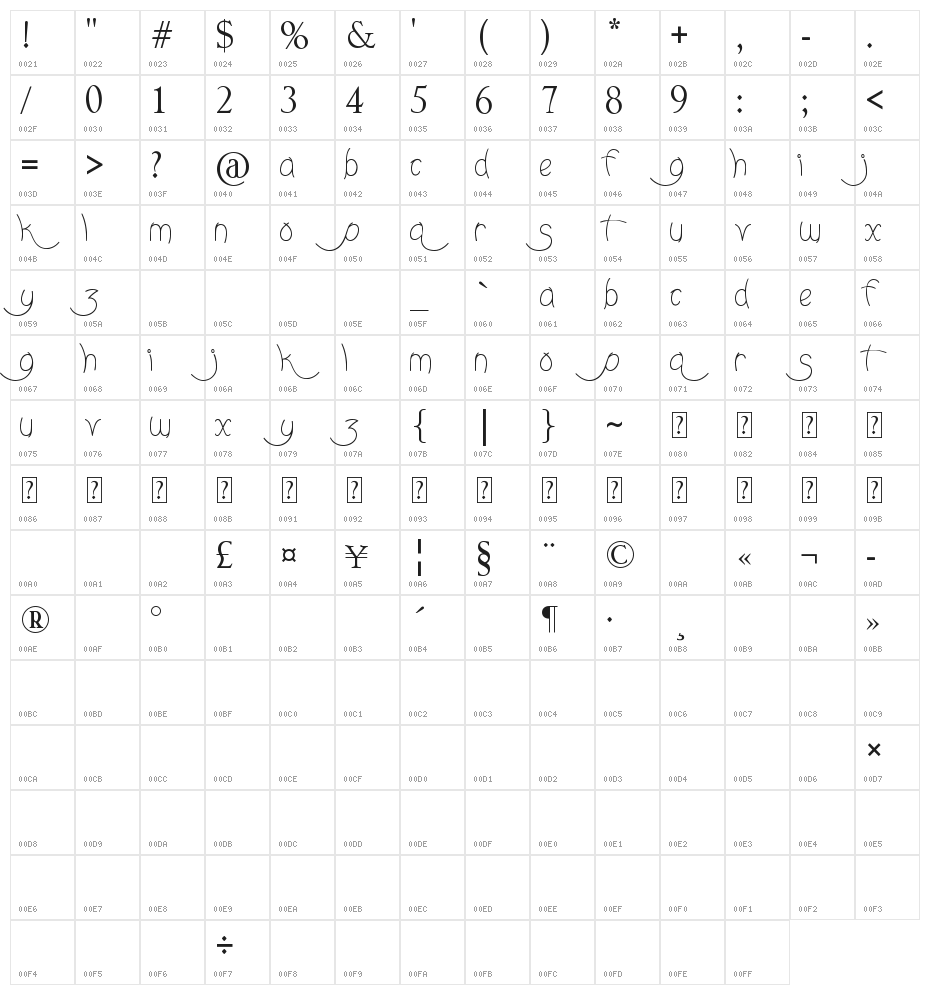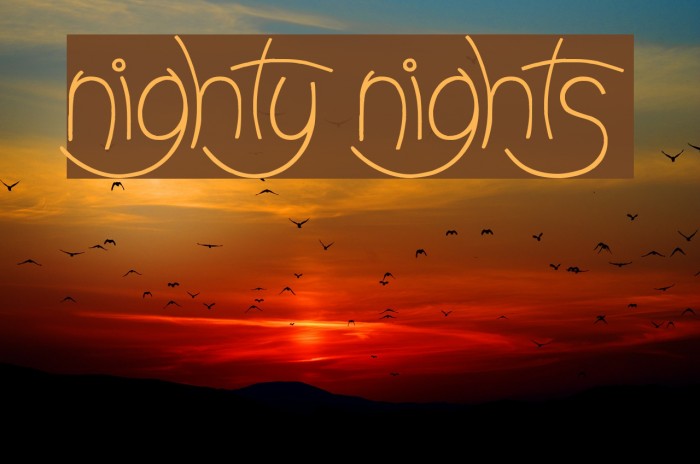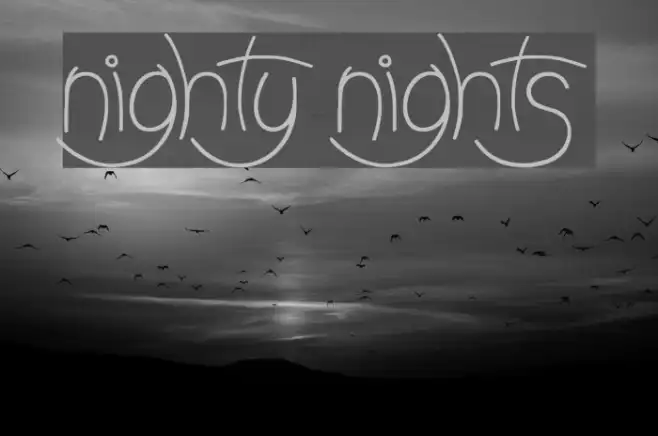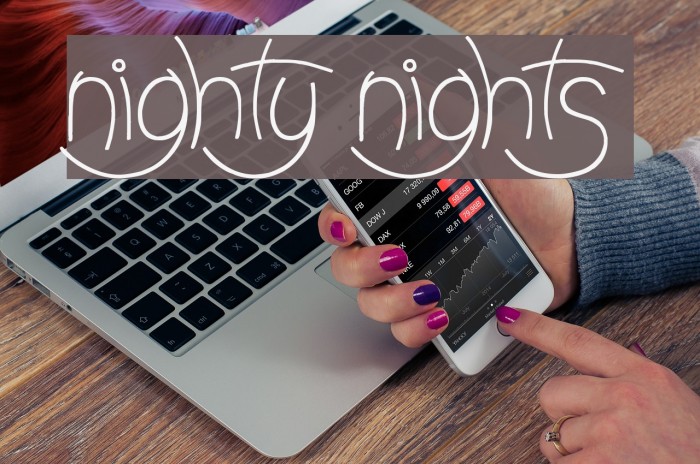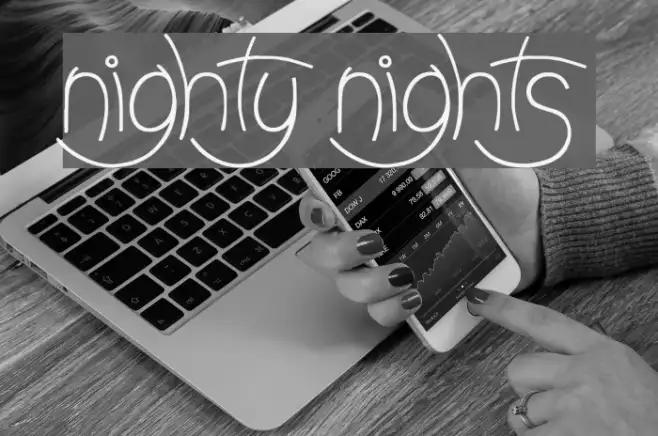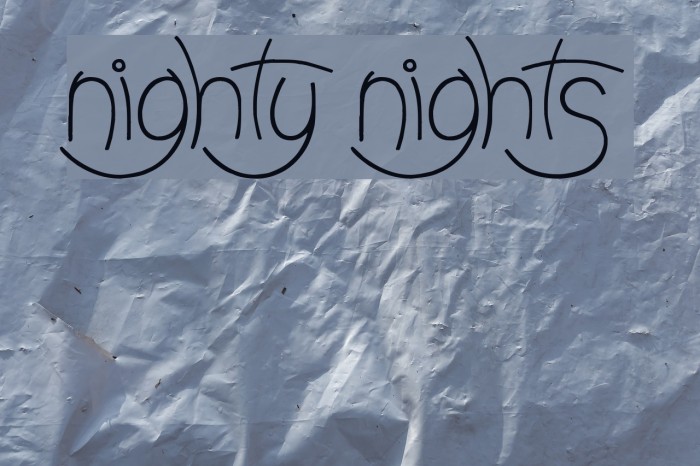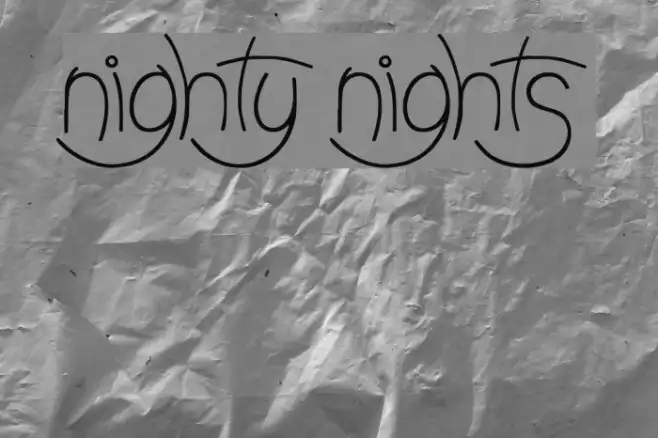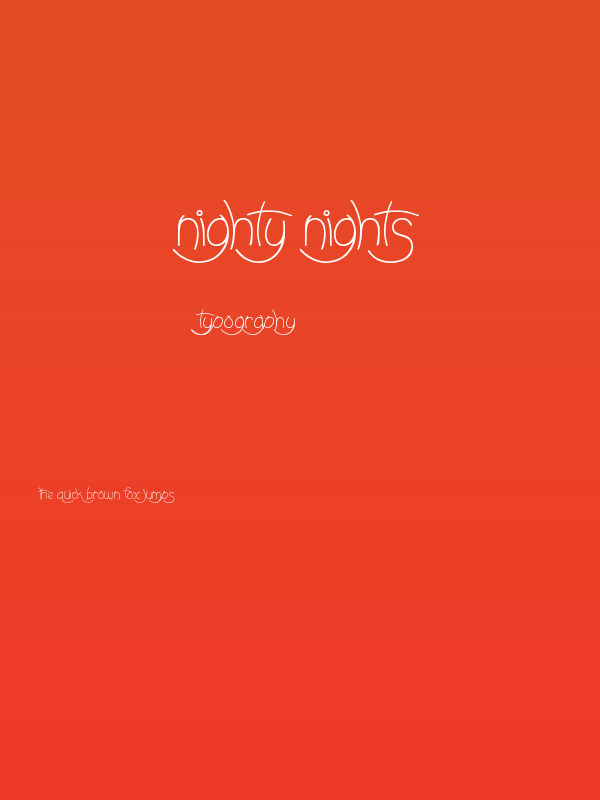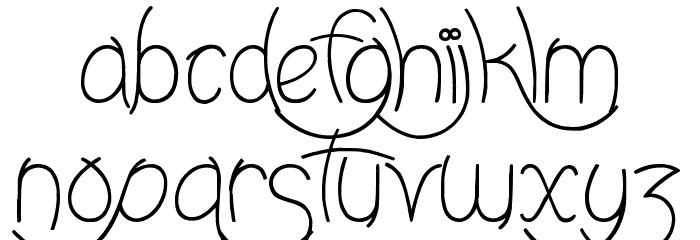
Nighty Nights Font
Nighty Nights Description
This font features a whimsical and playful design, characterized by its unique, flowing curves and loops. The letters have an organic feel, with a slight slant that adds to the casual and friendly appearance. The lowercase letters are particularly distinctive, with elongated ascenders and descenders that create a sense of movement. The numerals are bold and clear, ensuring readability. Special characters are creatively integrated, maintaining the font's overall playful aesthetic. This font is ideal for projects that require a touch of fun and creativity.
| Proposed Projects | Perfect for children's books, playful branding, greeting cards, and creative posters. |